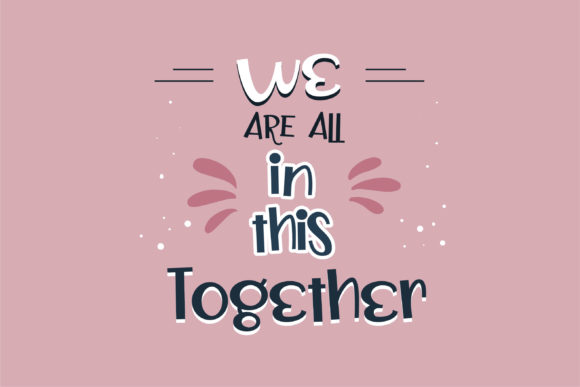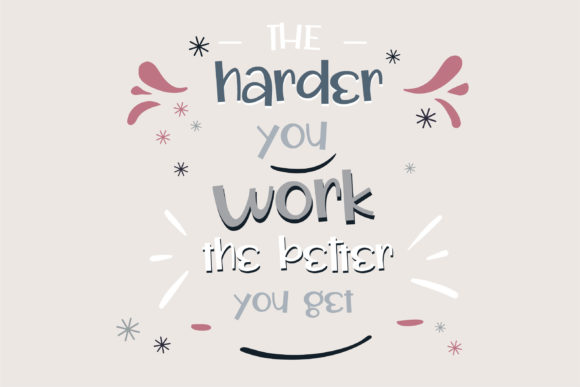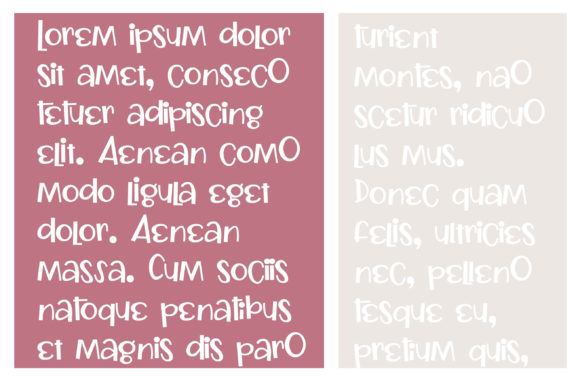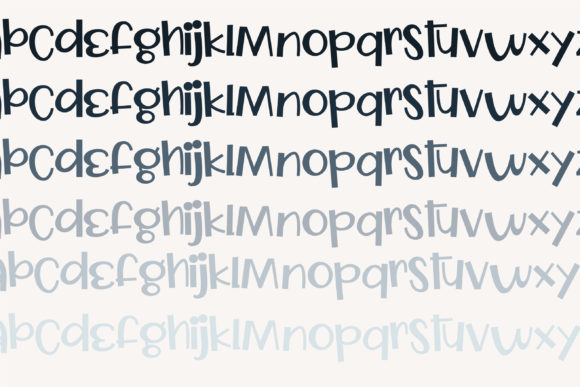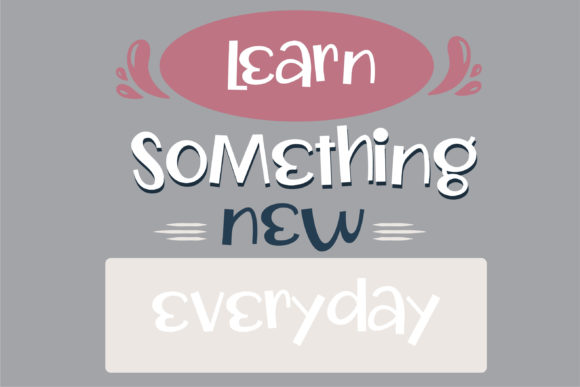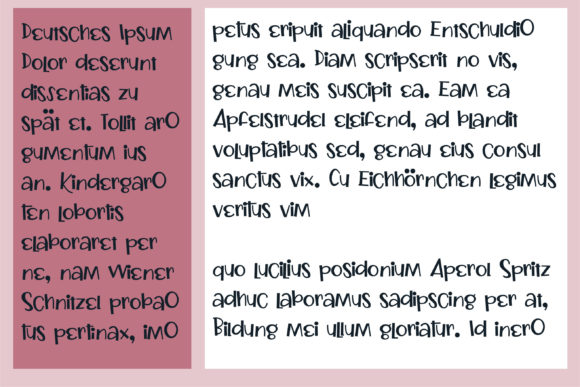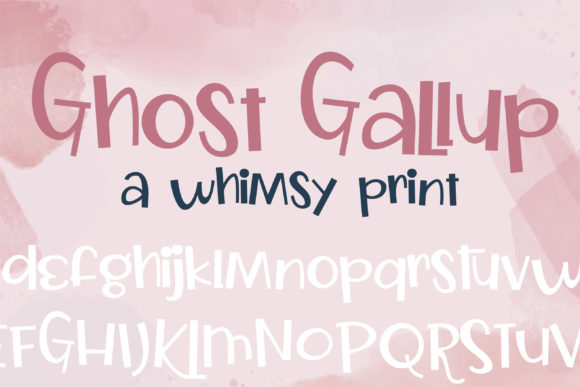
Introducing Ghost Gallup Font: A Whimsical Script to Elevate Your Designs
Are you tired of using the same old fonts in your designs? Look no further! Ghost Gallup Font is a unique and captivating script that can add a touch of magic to your creative projects. With its whimsical bounce in the baseline, beautiful characters, and PUA encoding, this font is sure to take your designs to the next level.
The Characteristics of Ghost Gallup Font
Ghost Gallup Font is a script font that boasts a distinctive bounce in its baseline, giving it a lively and playful feel. The characters are beautifully designed and well-balanced, making it an excellent match for a wide range of designs. Whether you’re working on a branding project, a website, or a craft, this font is sure to add a touch of elegance and sophistication.
What Makes Ghost Gallup Font So Versatile?
One of the key features that make Ghost Gallup Font so versatile is its ability to match a wide pool of designs. Whether you’re going for a modern, minimalist look or a more traditional, ornate feel, this font can adapt to suit your needs. Its beautiful characters and balanced design make it an excellent choice for:
- Website headers and titles
- Invitations and stationery
With Ghost Gallup Font, you can add a touch of personality and whimsy to your designs, making them stand out from the crowd.
PUA Encoding: Unlocking the Full Potential of Ghost Gallup Font
Ghost Gallup Font is PUA (Private Use Area) encoded, which means that you can access a wide range of glyphs and ligatures with ease. This encoding allows you to:
- Access alternative characters and glyphs
- Create custom ligatures and swashes
- Experiment with different font combinations
With PUA encoding, you can unlock the full potential of Ghost Gallup Font and take your designs to new heights.
Adding Ghost Gallup Font to Your Designs
So, how can you add Ghost Gallup Font to your designs? Here are a few ideas to get you started:
- Use it as a headline font to add a touch of whimsy and personality to your website or branding project
- Pair it with other fonts to create a unique and eye-catching combination
- Experiment with different font sizes and colors to add depth and interest to your design
With Ghost Gallup Font, the possibilities are endless!
Tips and Tricks for Getting the Most Out of Ghost Gallup Font
Here are a few tips and tricks to help you get the most out of Ghost Gallup Font:
- Experiment with different font sizes and colors to find the perfect combination for your design
- Use the font’s built-in glyphs and ligatures to add visual interest and personality to your design
- Pair Ghost Gallup Font with other fonts to create a unique and eye-catching combination
By following these tips and tricks, you can unlock the full potential of Ghost Gallup Font and create designs that are truly unforgettable.